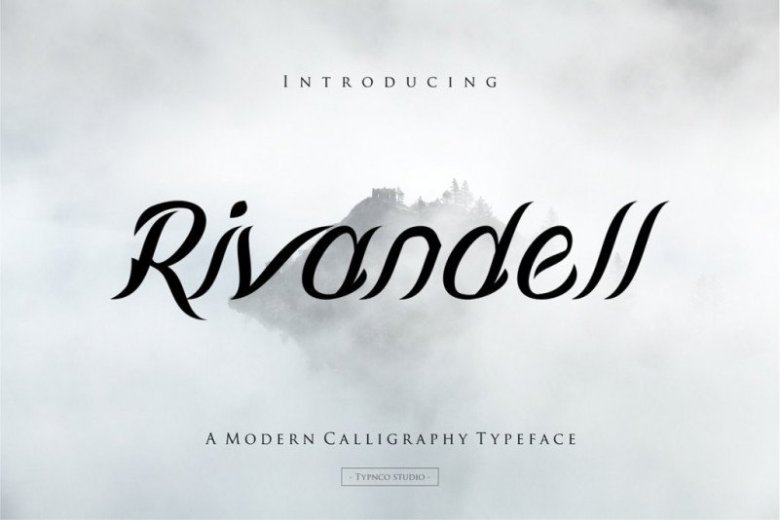
Rivandell Script Font Free
Rivandell Script Font – a new fresh handmade calligraphy typeface. This font are perfect for wedding postcard. It’s designed and shared by Typnco Studio. Rivandell is a cursive typeface inspired by royal handwriting and fiction readings; It is like an old taste but with a modern twist. Suitable for your wide variety of projects such as: wedding invitations, novel covers / titles, signage, short phrases, books, etc. Or any design that has a strong, elegant touch (for print and web media) with beautiful handwritten look.